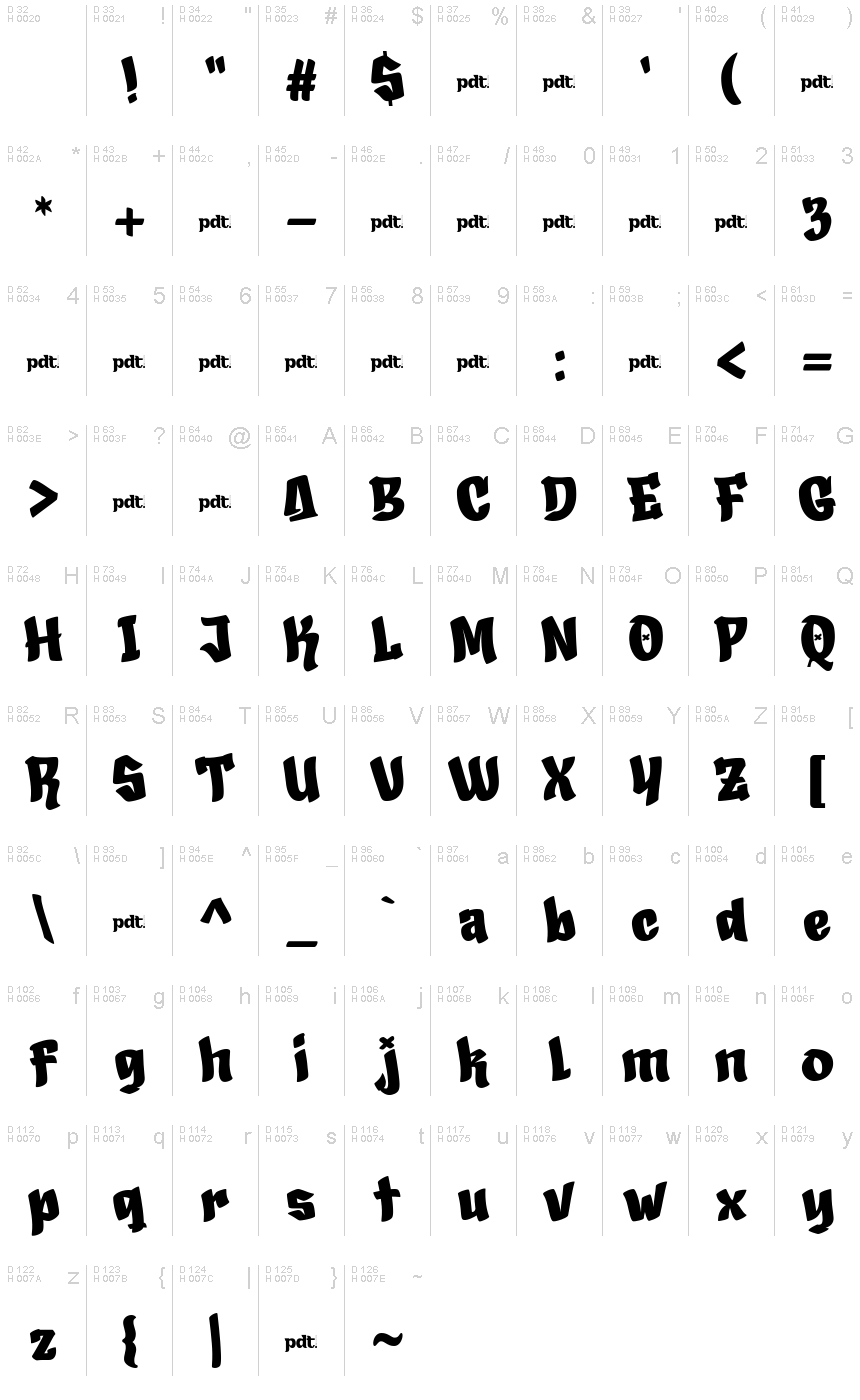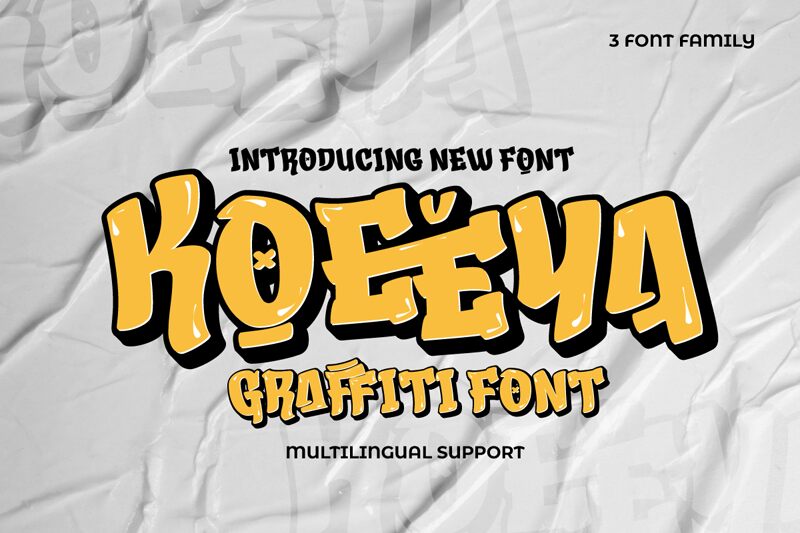
KOEEYA trial Regular
Koeeya font, designed by Productype, captures the raw energy of graffiti art with its bold and striking presence. The exaggerated forms and dynamic characters convey a sense of movement and rebellion, making it an eye-catching choice for any design project.
Its expressive style is perfect for urban-themed graphics, music posters, or street art-inspired branding. Koeeya resonates with individuality, effortlessly enhancing designs that require a punchy visual statement. Whether splashed across a vibrant mural or used in edgy marketing materials, this font invites creativity and engages the viewer with its unconventional flair.
In every application, Koeeya asserts itself boldly while remaining distinctly playful—a perfect balance that ensures it stands out in any context where impact matters most.